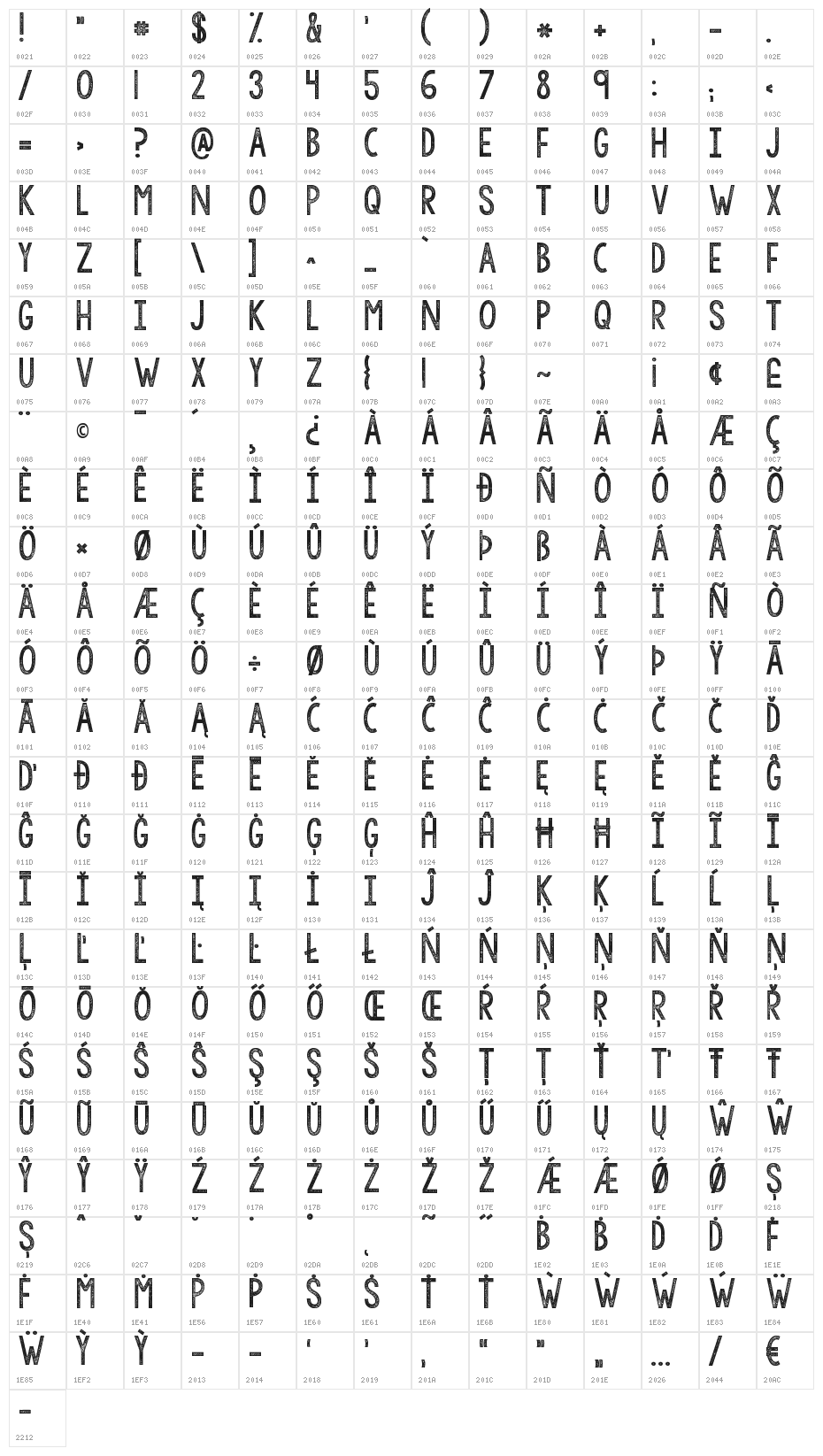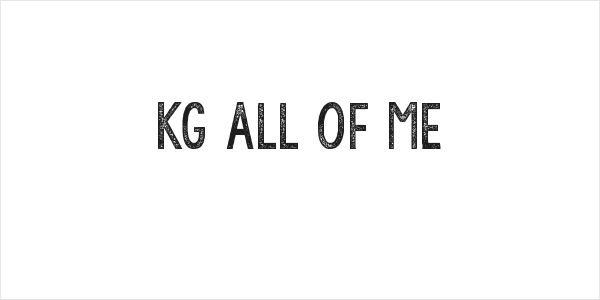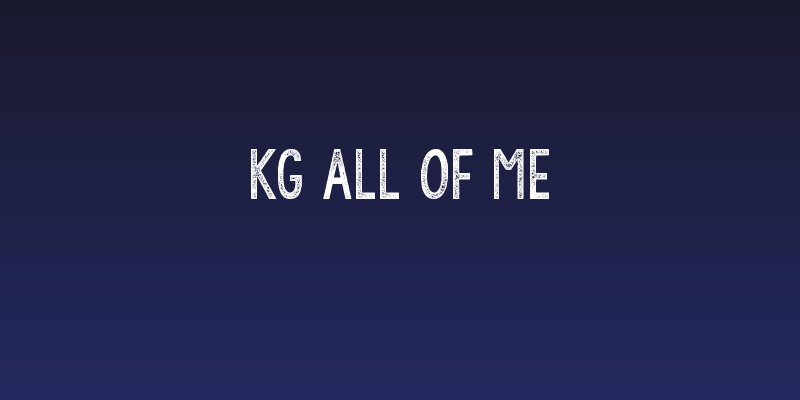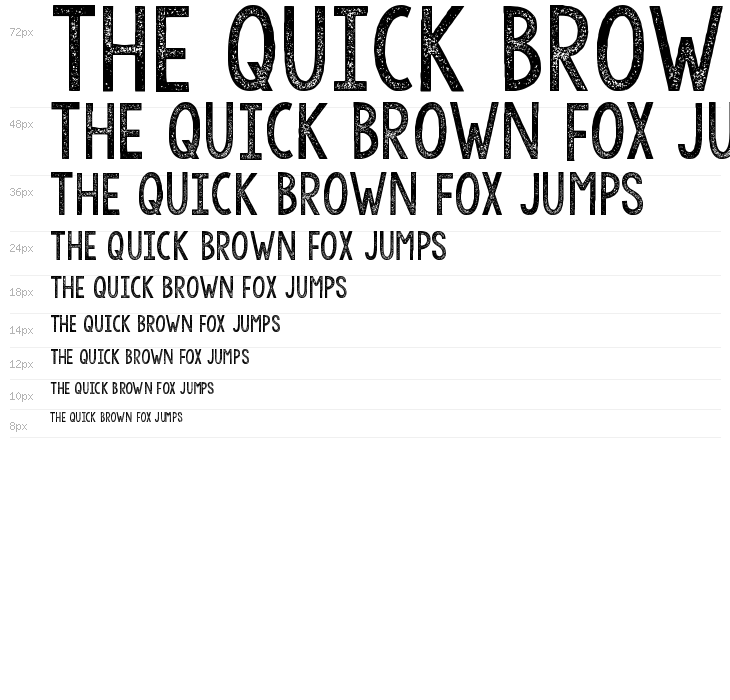
KG All of Me Font
KG All of Me Description
This font features a bold, distressed style with a textured appearance that gives it a vintage, worn-out look. The uppercase and lowercase letters are consistent in their rugged design, with each character displaying a unique speckled pattern that adds depth and character. The numerals and special characters maintain this distressed aesthetic, making the font suitable for projects that require a rustic or handcrafted feel. The overall design is eye-catching and would stand out in any creative project.
Overall StyleVintage
Proposed ProjectsIdeal for vintage posters, rustic branding, handcrafted product labels, and creative design projects.